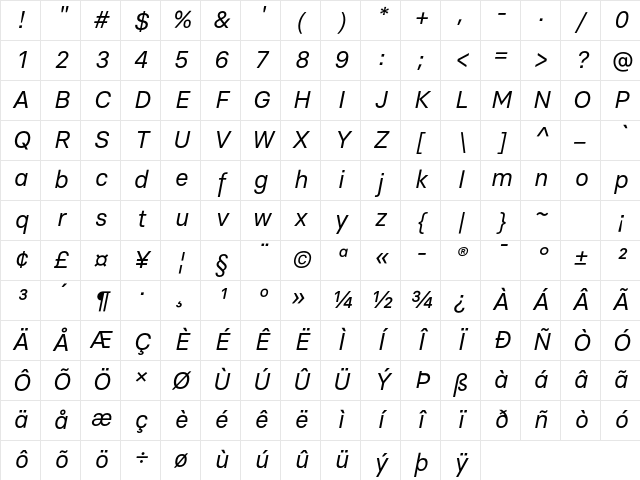
Complete Basier Square Italic glyph index. Displaying only characters natively supported by Basier Square Italic font.
Basier Square is a composed and adaptable typeface that performs quietly and consistently across a wide range of design contexts. The slanted form adds forward momentum and visual energy.
Pro Tip: Use Basier Square for emphasis, pull quotes, and subheadings where its slanted energy can add rhythm to the layout.